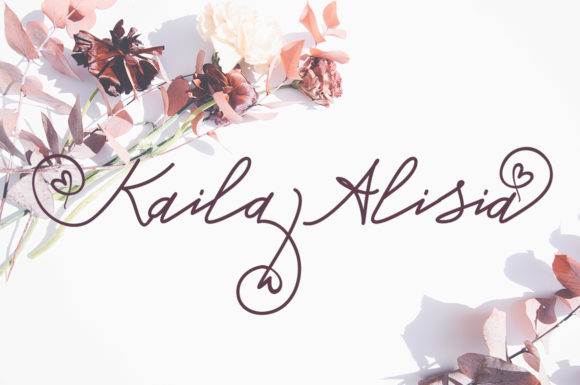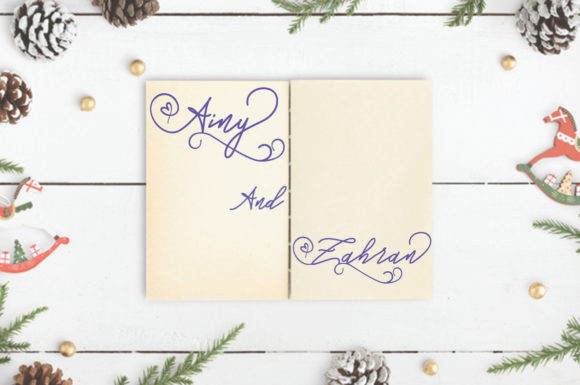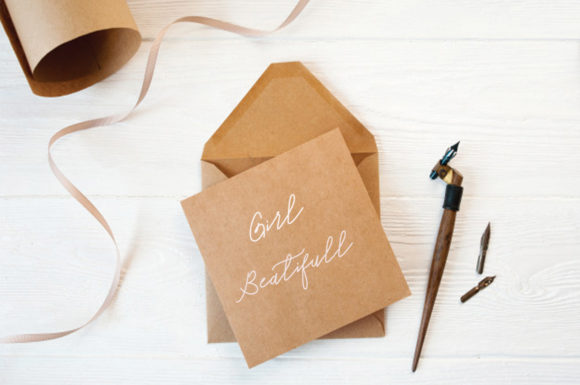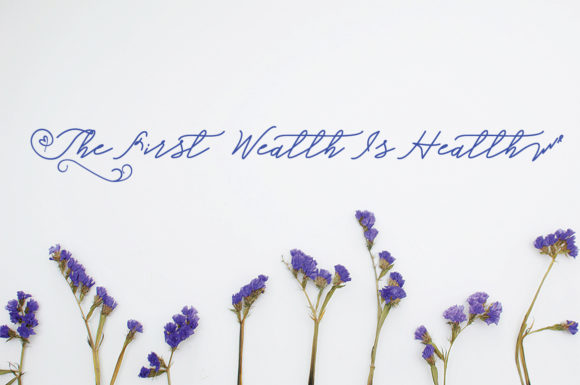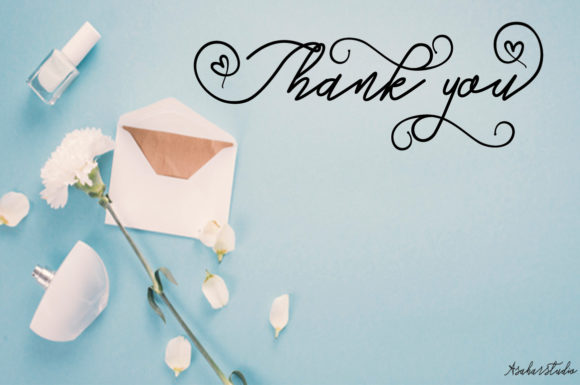
Introduction to Mongasteen Font Font
Fonts play a crucial role in design, and the Mongasteen Font font is a typeface that brings both character and versatility to any project. Whether you’re working on a branding project, a website, or a print design, the Mongasteen Font font offers a unique style that can elevate your work.
Mongasteen is a bold and fun script with a playful feel.
Fall in love with its calligraphic look .
The Mongasteen Font font is more than just a typeface – it’s a design tool that helps you communicate your message with style and clarity. Its unique character set and versatile design make it suitable for a wide range of applications, from elegant invitations to bold headlines.
With its carefully crafted letterforms and balanced proportions, the Mongasteen Font font ensures readability and visual appeal across all mediums.
The Mongasteen Font font stands out with its unique design, exceptional readability, and versatility across various design applications.